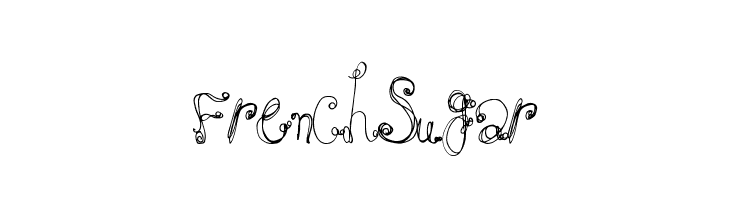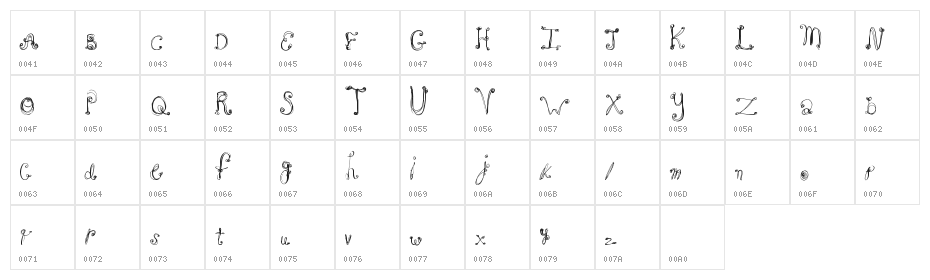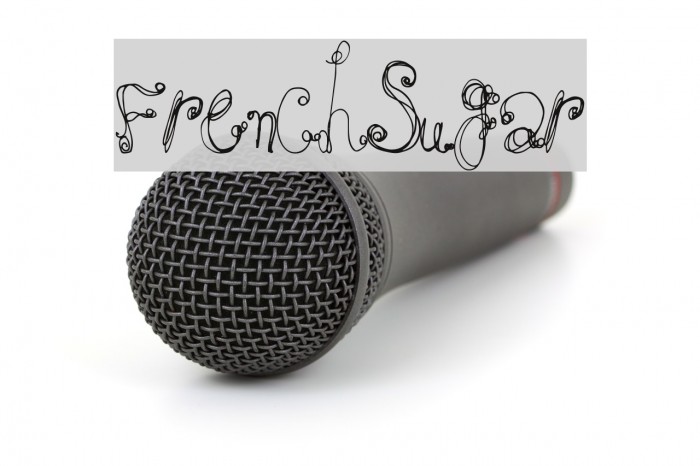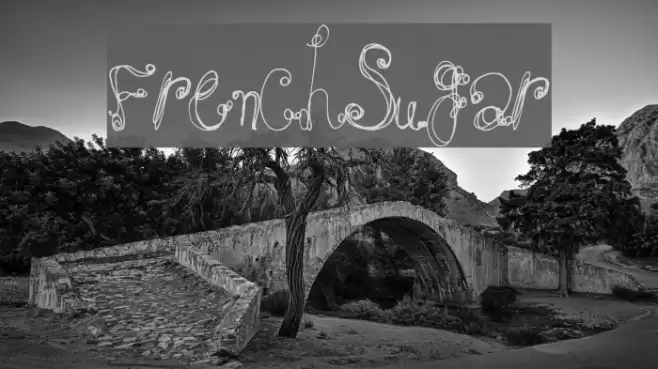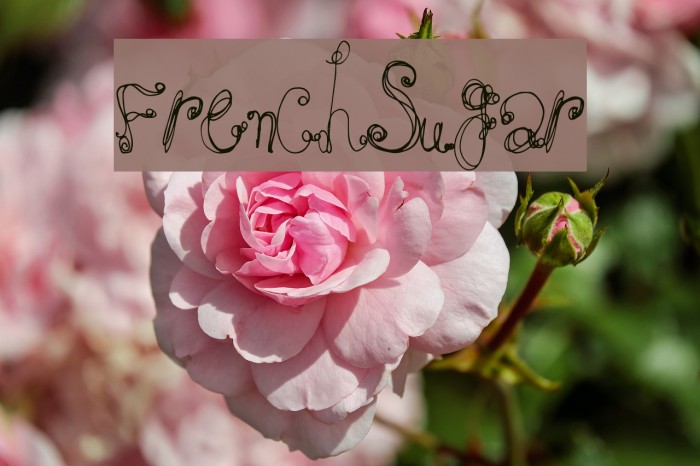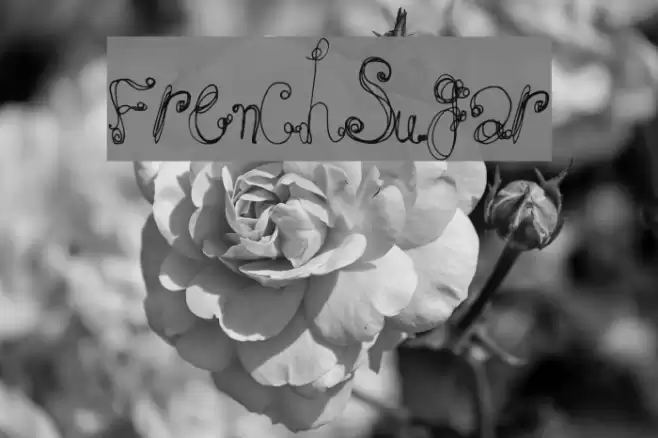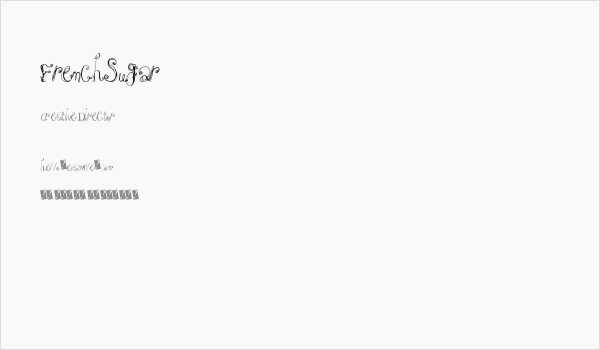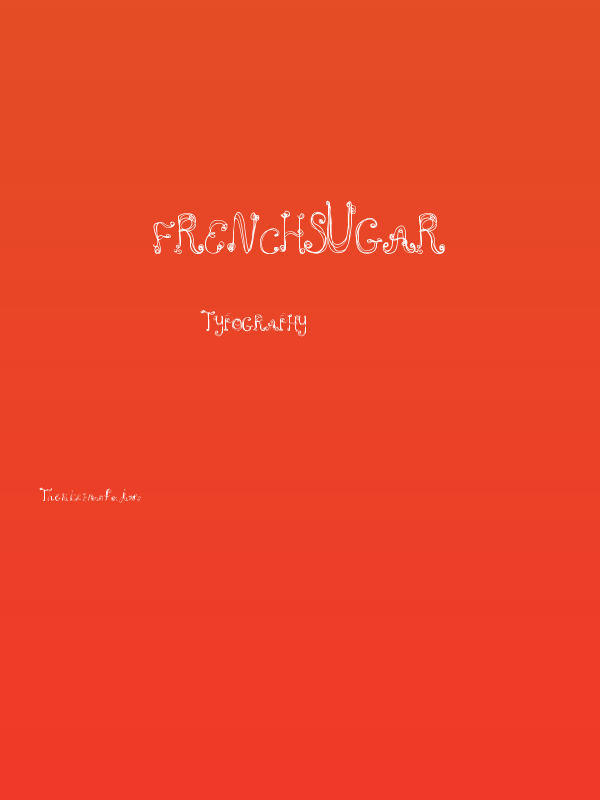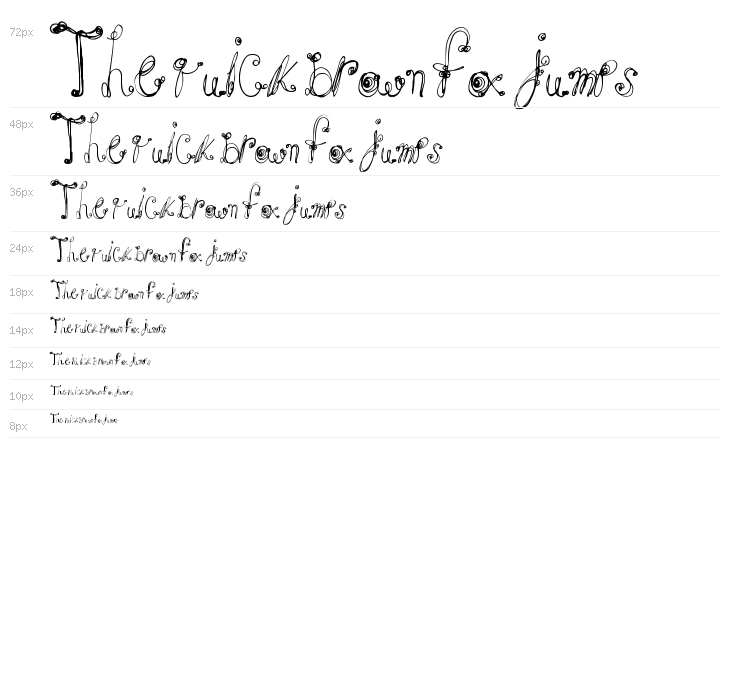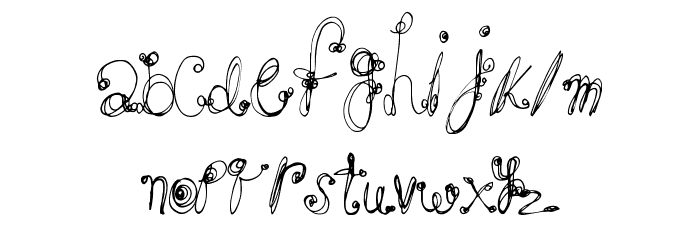
FrenchSugar Font
FrenchSugar Description
This whimsical and decorative font features intricate, swirling lines and playful loops that give it a unique, artistic flair. Each character is adorned with delicate curls and embellishments, creating a sense of movement and elegance. The uppercase letters are bold and expressive, while the lowercase letters maintain the same decorative style with a slightly more delicate touch. The overall design is reminiscent of hand-drawn calligraphy, with an emphasis on creativity and individuality. This font is perfect for projects that require a touch of whimsy and charm, such as invitations, greeting cards, or artistic posters.